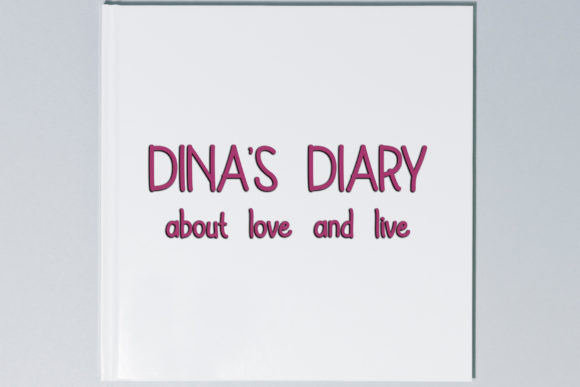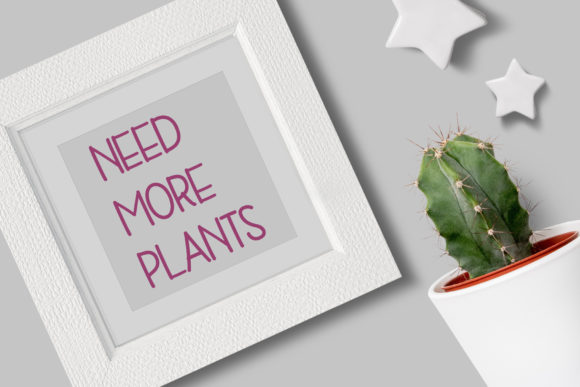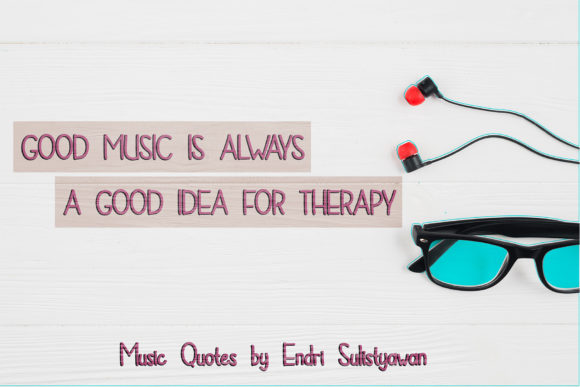
Introduction to Hotabe Font
Have you ever stared at a blank page, struggling to find the perfect font to bring your creative project to life? The moment of truth arrives when you finally discover that elusive font that elevates your design and makes it truly shine. For many designers, this moment is what makes all the hard work worth it.
Enter the Hotabe Font, a thin, friendly, and light lettered display font that’s sure to become a staple in your design library. With its high-quality design and transparent background, this font is a valuable resource for any creative project. Whether you’re working on a professional design or a personal passion project, the Hotabe Font has the potential to take your work to the next level.
Key Features of Hotabe Font
- High-quality font with a transparent background, ideal for creative projects and design resources.
- Designed to be versatile, suitable for a wide range of creative projects, from digital art to print materials.
- Features a unique, modern design that can add a touch of sophistication to any visual content.
- Perfect for designers and artists looking for a high-quality, free design resource for their creative projects.
Honest Review: Hotabe Font
I recently had the opportunity to work with the Hotabe Font for a creative project, and I must say I was quite impressed. As a designer, I’m always on the lookout for high-quality design resources that can elevate my work. The Hotabe Font did not disappoint.
- ✨ High-quality font with crisp and clean lines, perfect for creating a professional look.
One of the things that stood out to me about the Hotabe Font was its versatility. It’s perfect for a wide range of creative projects, from brochures and business cards to websites and social media graphics.
Overall Impression:
Overall, I was thoroughly impressed with the Hotabe Font. It’s a high-quality design resource that’s perfect for creative projects. While it may have some limitations, it’s definitely worth checking out if you’re looking for a reliable and versatile font.
Tips for Getting the Most Out of Hotabe Font
To get the most out of the Hotabe Font, use it in combination with other high-quality design resources, such as images and graphics. Experiment with different font sizes and styles to create a visually appealing design.
The Hotabe Font is perfect for creative projects such as logos, brochures, and business cards. It’s also great for designing digital products, such as apps and websites. With its high-quality design and transparent background, the Hotabe Font is a valuable resource for any designer.